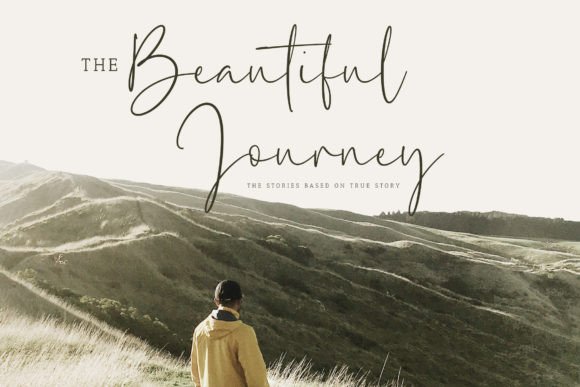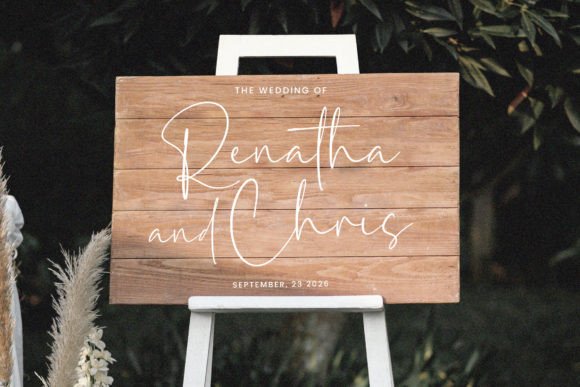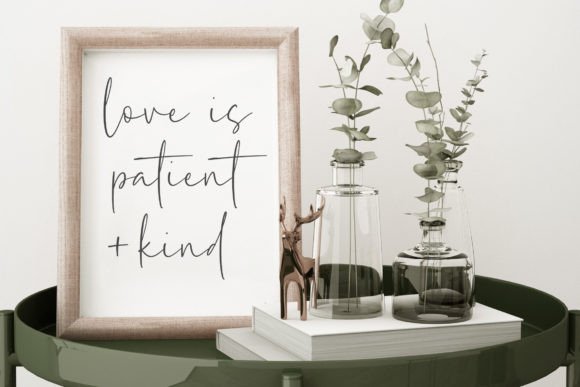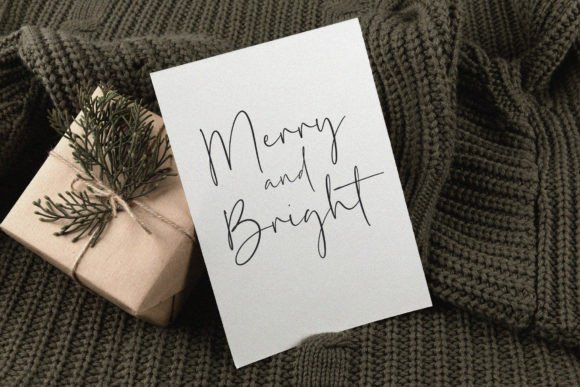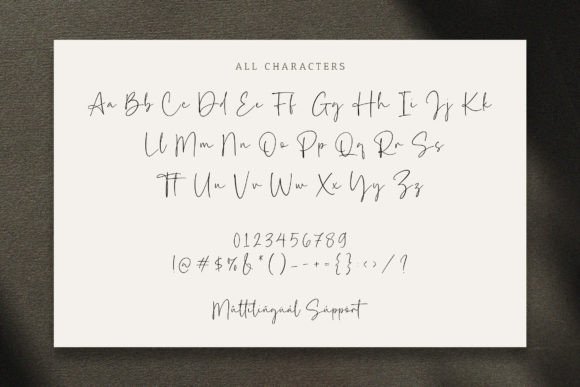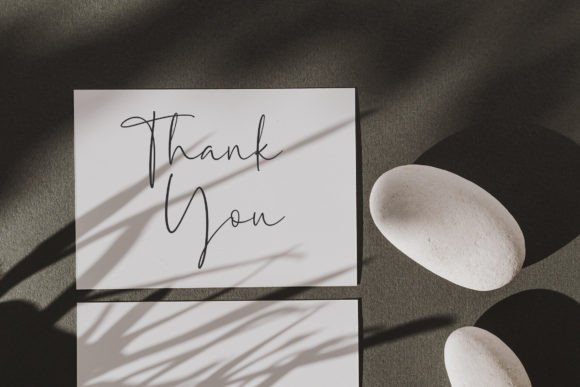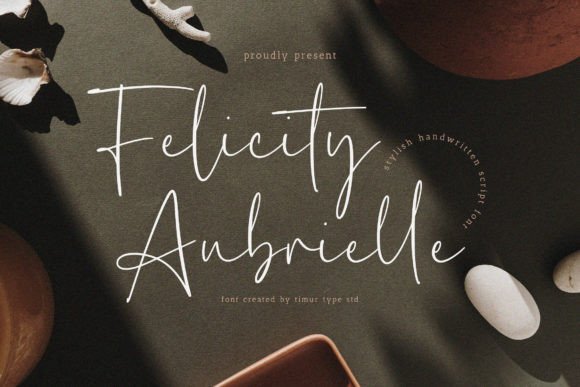
Discover the Elegance of Felicity Aubrielle Font
In the world of typography, few fonts manage to capture the essence of elegance and sophistication as effectively as the Felicity Aubrielle Font. This beautiful, handcrafted font is designed to bring a touch of personalization and uniqueness to any design or text it is applied to. With its distinctive Latin-shaped lines and intricate details, Felicity Aubrielle is perfect for designers and crafters looking to add a bespoke touch to their work.
The Unique Characteristics of Felicity Aubrielle Font
Felicity Aubrielle Font displays small Latin-shaped lines, giving it an elegant and distinctive appearance. The font’s design is reminiscent of Latin hand lines, which are known for their fluidity and expressiveness. The subtle strokes and intricate details of Felicity Aubrielle add a level of sophistication and refinement to any text or design, making it perfect for projects that require a high level of elegance.
Crafting a Personalized Look with Felicity Aubrielle
One of the standout features of Felicity Aubrielle Font is its subtle and individualistic nature. This font is designed to bring a personal, handmade touch to any design or text, making it perfect for creating attention-grabbing titles, logos, or other elements that require a unique and bespoke look. Whether you’re working on a branding project, a wedding invitation, or a personal craft project, Felicity Aubrielle is the perfect choice for adding a touch of personality and style.
Applications of Felicity Aubrielle Font
Felicity Aubrielle Font is a versatile typeface that can be used in a variety of applications, including:
• Branding and Logo Design: The font’s unique and elegant design makes it perfect for creating bespoke logos and branding elements that require a high level of sophistication.
• Wedding and Event Stationery: Felicity Aubrielle’s romantic and elegant design makes it perfect for wedding invitations, save-the-date cards, and other event stationery.
• Personal Crafts: The font’s handmade and individualistic nature makes it perfect for personal craft projects, such as handmade cards, scrapbooking, and journaling.
• Digital Design: Felicity Aubrielle can also be used in digital design, including social media graphics, blog headers, and website design.
Felicity Aubrielle Font is a beautiful and elegant typeface that is perfect for designers and crafters looking to add a touch of sophistication and personality to their work. With its distinctive Latin-shaped lines, intricate details, and subtle strokes, this font is sure to make a statement in any design or text it is applied to. Whether you’re working on a branding project, a wedding invitation, or a personal craft project, Felicity Aubrielle is the perfect choice for adding a bespoke touch to your work.